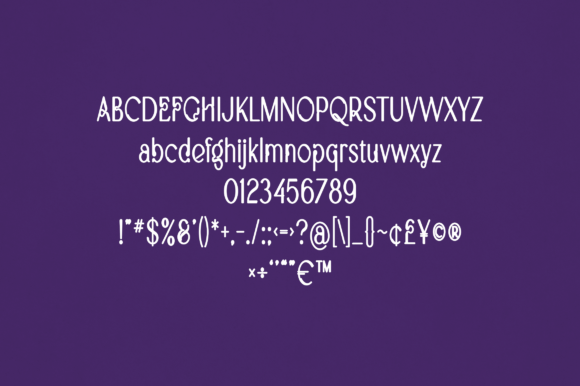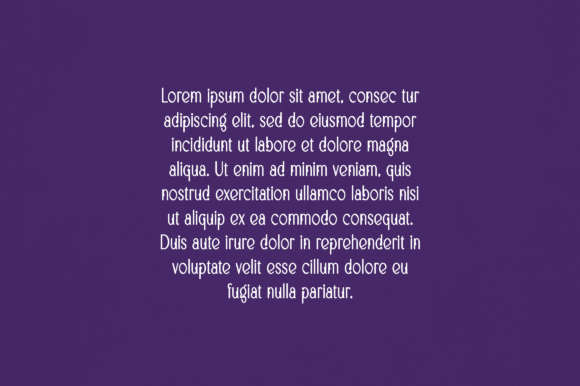
Introducing Blakley Font: Elevate Your Typography with Elegance and Versatility
In the world of design, typography plays a crucial role in conveying messages, expressing creativity, and building brand identities. Among the myriad of fonts available, Blakley stands out as a beacon of elegance and versatility. This exquisite font is designed to transform your typography into something truly unique, making it perfect for a wide range of applications, from logos and branding to headlines and plain text.
The Essence of Blakley Font
Blakley is not just a font; it’s an experience. Its elegant strokes and versatile design make it an ideal choice for designers and crafters looking to add a touch of sophistication to their projects. Whether you’re working on branding projects, home-ware designs, product packaging, or magazine headers, Blakley promises to enchant your audience with its refined charm.
Unleash Your Creativity with Blakley
One of the most significant advantages of Blakley is its adaptability. This font can seamlessly blend into various design contexts, ensuring that your work stands out, regardless of the medium. Here are some ways you can leverage Blakley’s versatility:
- Branding Projects: Create a lasting impression with a unique logo or wordmark that speaks elegance and sophistication.
- Home-ware Designs: Add a touch of class to your home decor designs, making them more appealing and stylish.
- Product Packaging: Stand out on store shelves with packaging that exudes luxury and quality.
- Magazine Headers: Capture your readers’ attention with headers that are both stylish and readable.
- Text Overlay: Use Blakley as a stylish text overlay on any background image, adding depth and interest to your visuals.
Why Choose Blakley?
With so many fonts at your disposal, what makes Blakley the go-to choice for designers and crafters? Here are a few reasons:
- Unique Typography: Blakley offers a fresh take on traditional typography, allowing you to create unique and memorable designs.
- Elegance and Versatility: Its elegant design and versatile nature make it suitable for a wide range of projects and applications.
- High Readability: Despite its elegant and sometimes intricate design, Blakley maintains high readability, making it perfect for both headlines and body text.
Tips for Using Blakley Effectively
To get the most out of Blakley, consider the following tips:
- Pair it Wisely: Experiment with font pairings to create contrast and hierarchy in your designs.
- Adjust Size and Weight: Play with different sizes and weights of Blakley to add depth and emphasis to your typography.
- Consider Context: Think about the context in which your design will be used and adjust your typography accordingly.
Blakley font is a game-changer for designers and crafters looking to elevate their typography with elegance and versatility. Its unique design, adaptability, and readability make it an excellent choice for a variety of projects. Whether you’re aiming to create a stunning logo, enhance your branding, or simply add a stylish touch to your designs, Blakley is sure to enchant and inspire. Embrace the beauty of Blakley and transform your typography into something truly special.